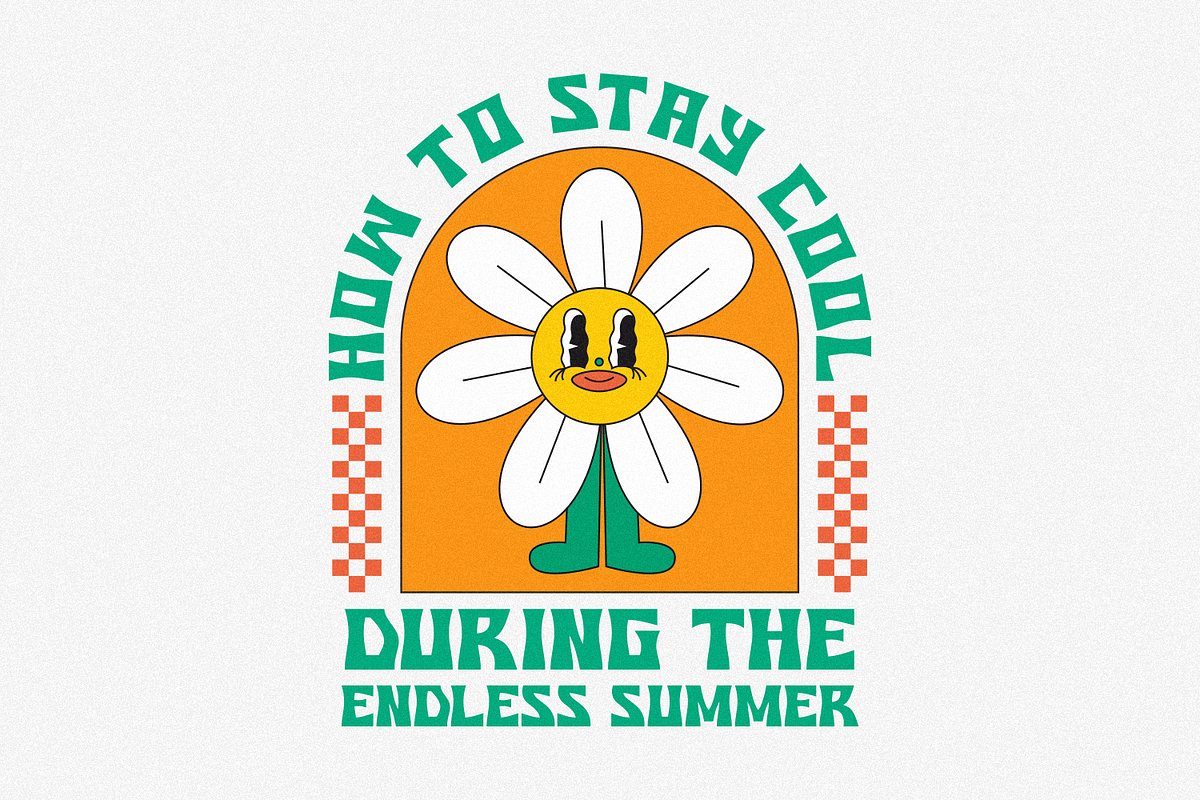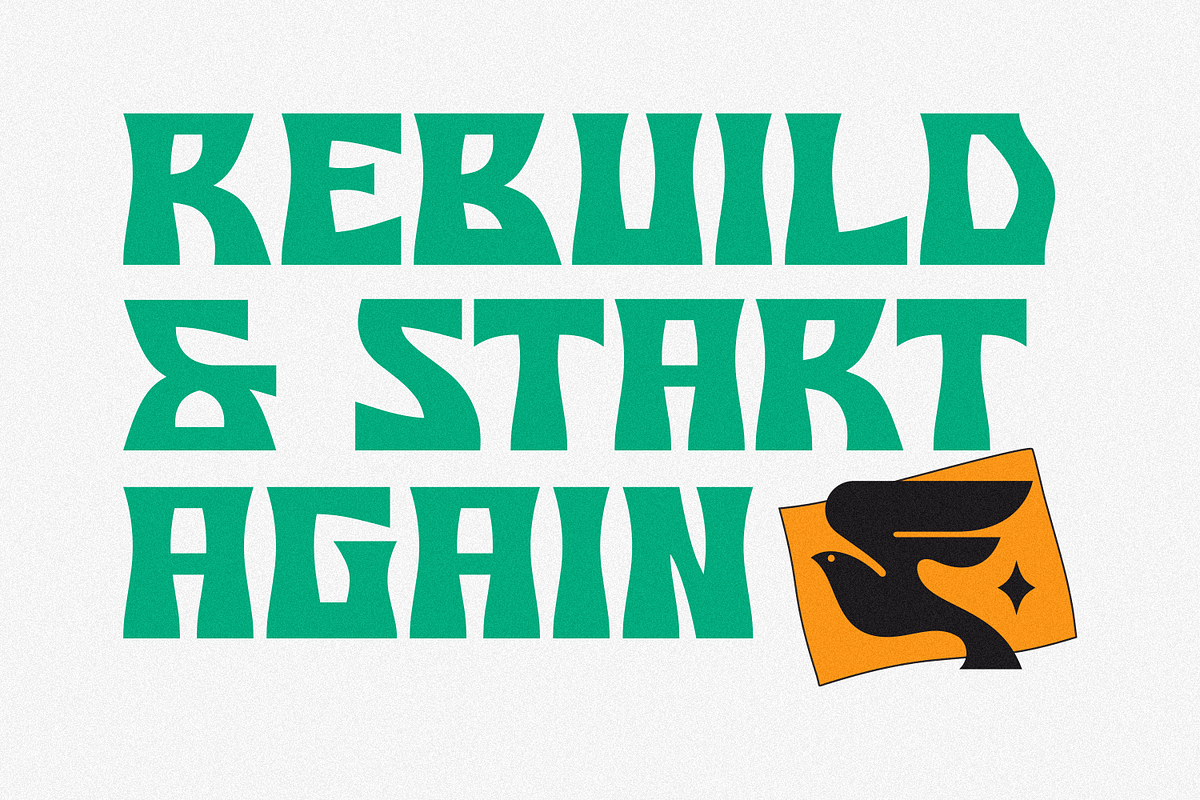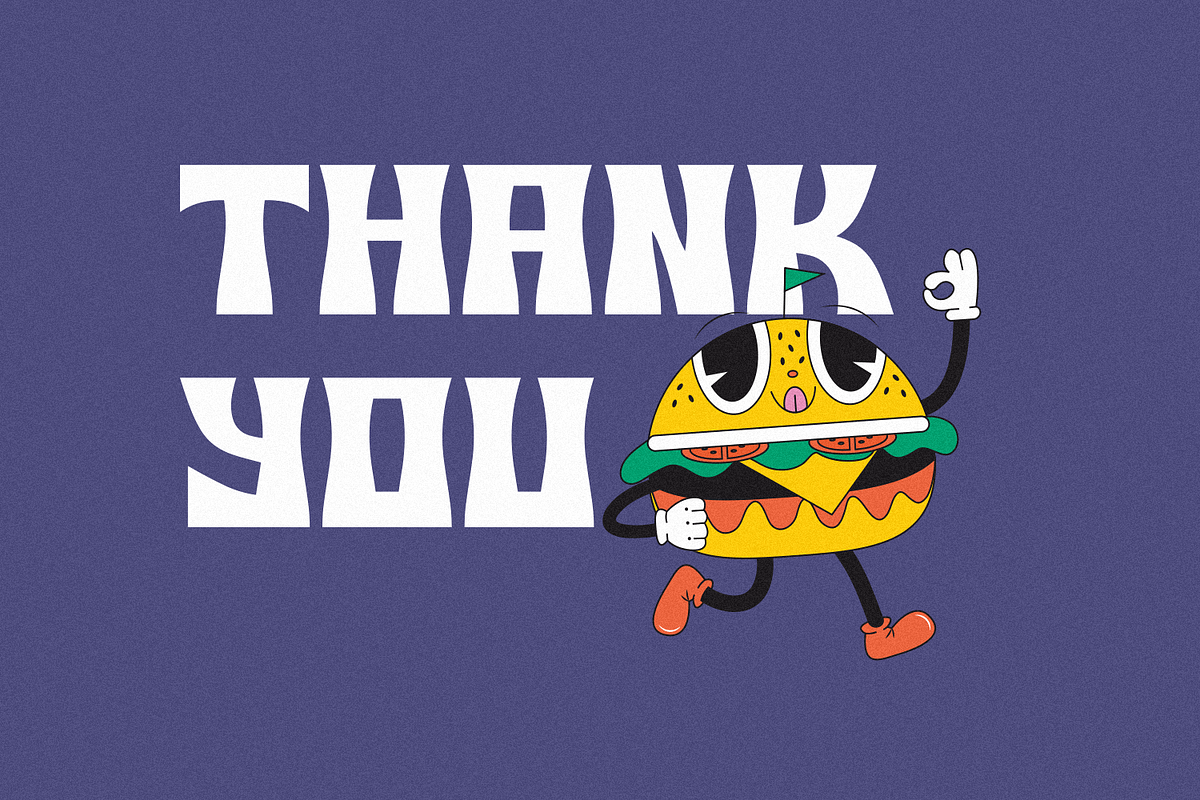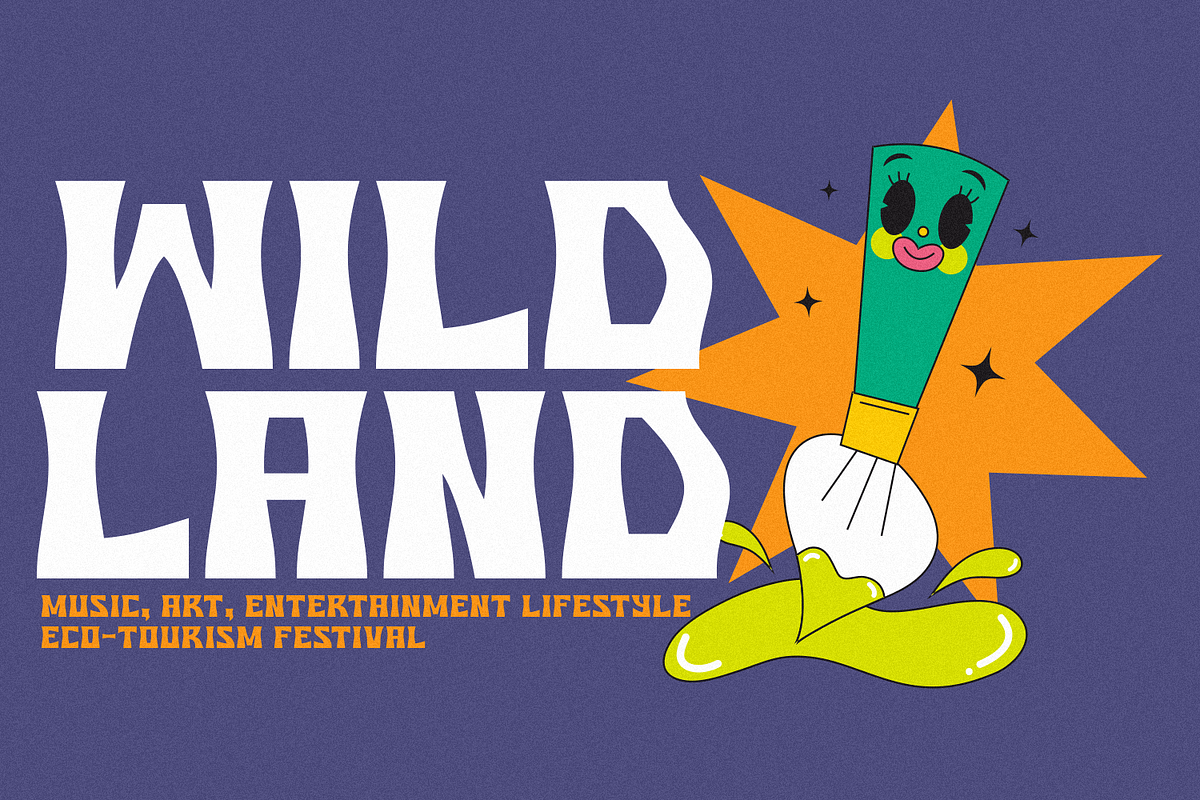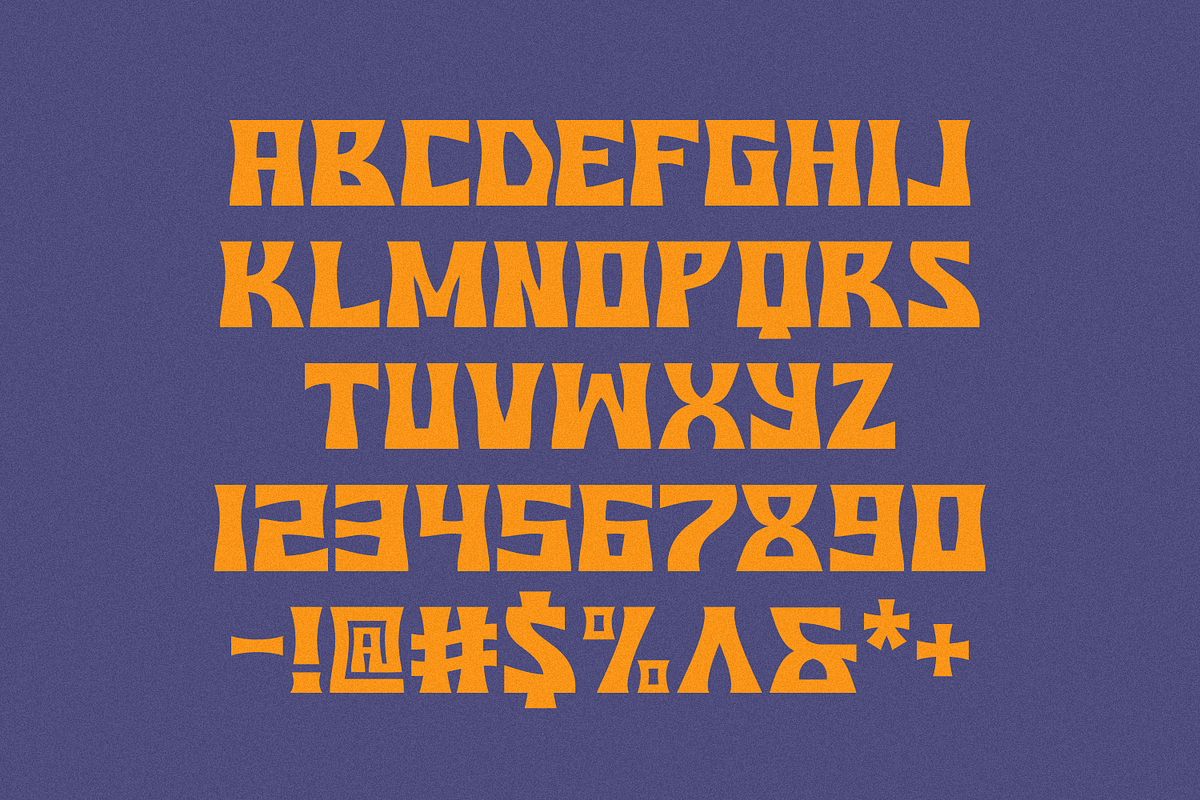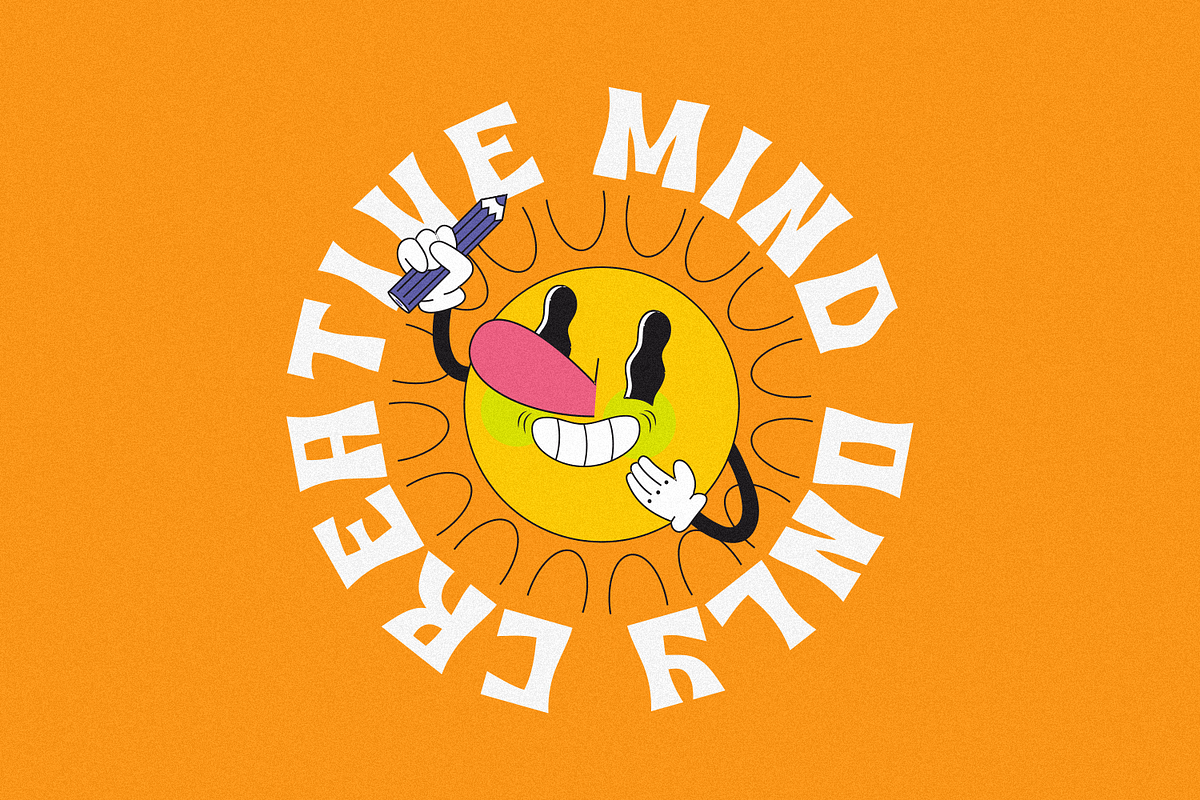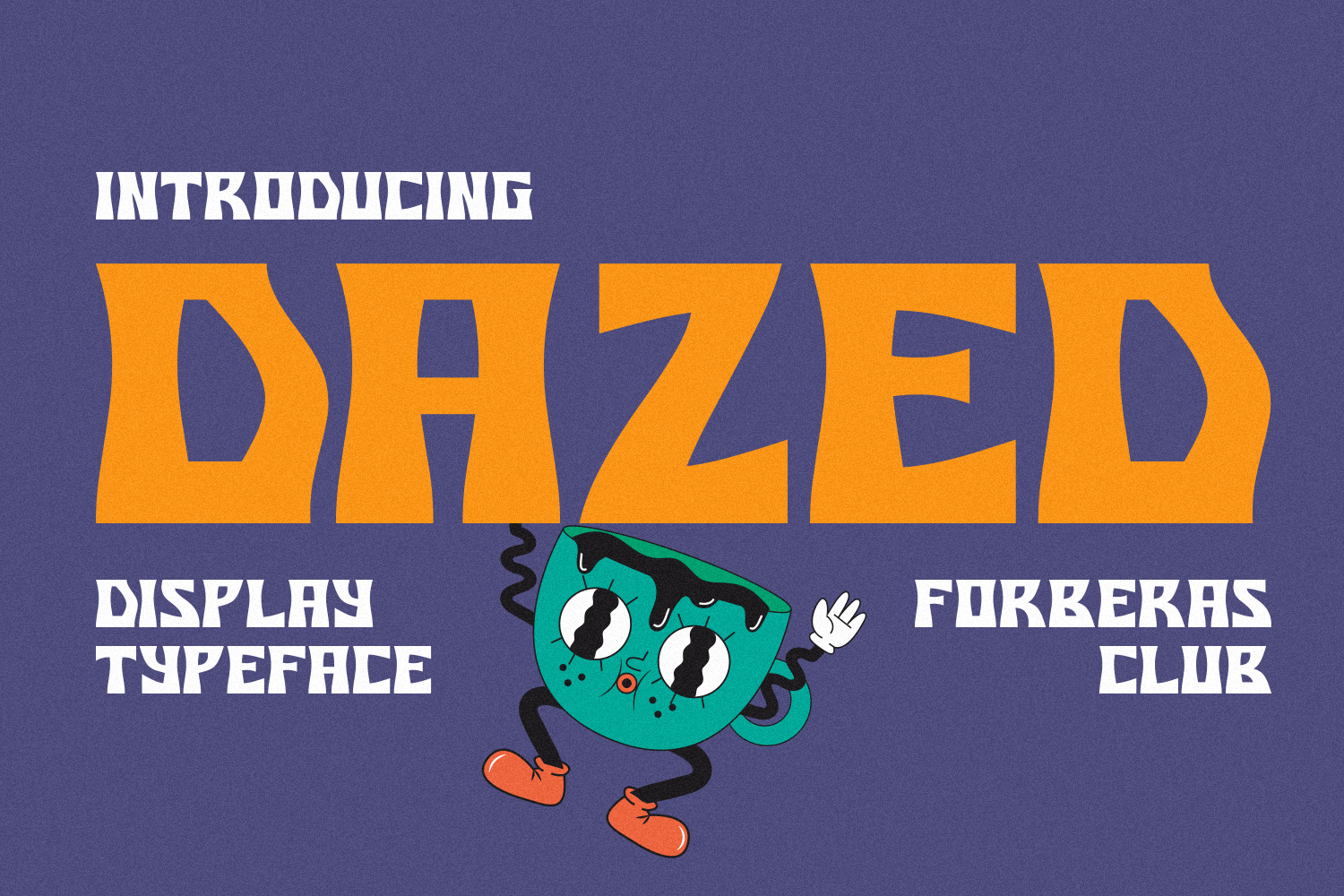
Dazed Font
Introducing Dazed by Forberas Club
Dazed is a Handwritten Script font that will make your designs look classic, Farmhouse, Boho, and Feminine. It is a great font for events, Wedding Project, signature, album covers, logos, magazines, advertisements, Crafting Idea but it also works great for other projects. Add it to your fonts library, and it will enhance your creativity!
Dazed is best for: